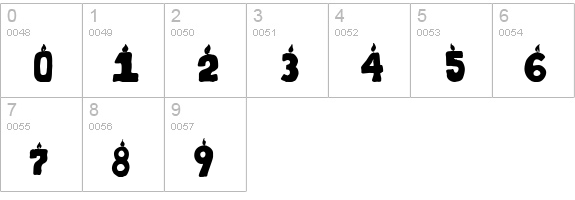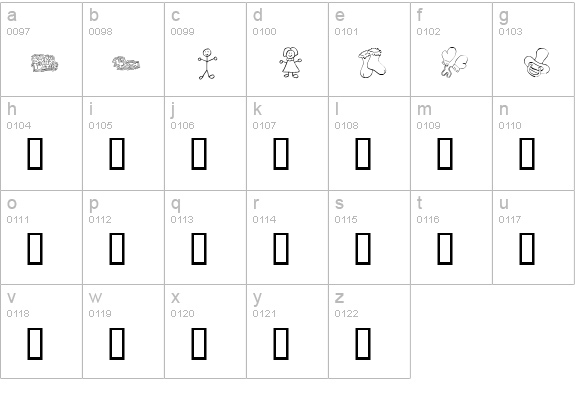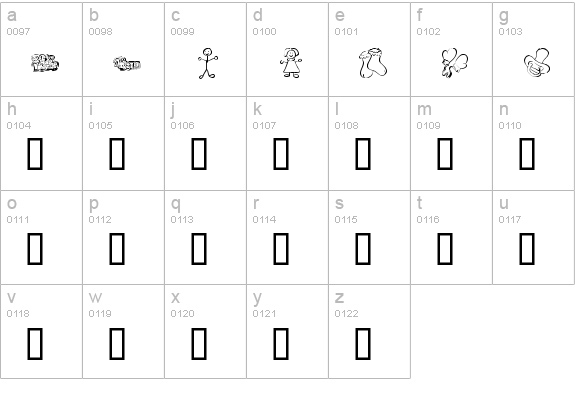
KR First Years Dings Font Details
KR First Years Dings font is a whimsical and playful typeface that is perfect for adding a touch of fun to your design projects. This font features a collection of charming doodles and icons inspired by childhood memories and school days. Whether you're creating invitations, greeting cards, or posters, KR First Years Dings font will bring a sense of nostalgia and joy to your designs. Best of all, this font is completely free to download at FontsMarket.com. With its easy-to-use glyphs and unique characters, KR First Years Dings font is a versatile choice for adding a touch of creativity to your projects. Download it today and let your imagination run wild with this delightful font!